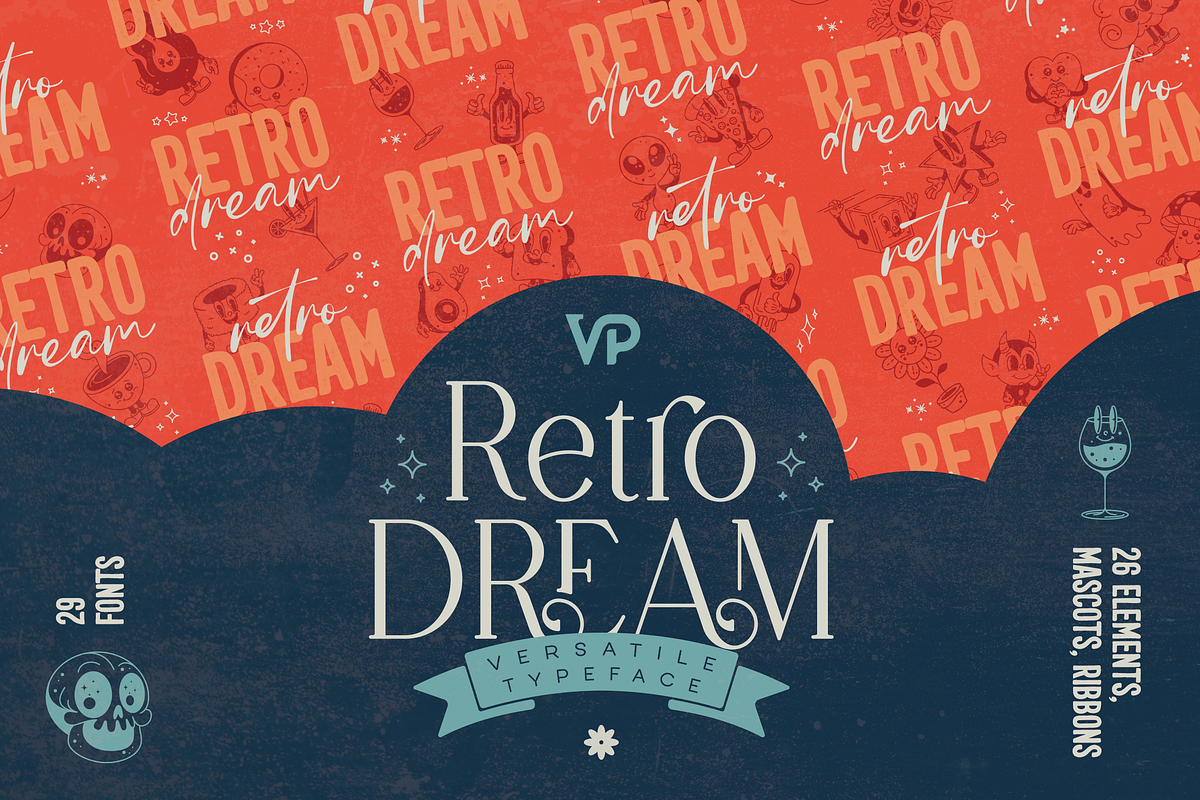
Retro Dream Family – 29 Fonts Free Download is a vibrant and nostalgic font collection inspired by the bold, groovy aesthetics of the '60s, '70s, and '80s. With 29 unique styles including playful scripts, rounded sans serifs, bold displays, and textured alternates, this bundle is perfect for logo design, vintage posters, product packaging, retro branding, and fun social media graphics.
Each font in the Retro Dream Family offers its own unique flair while maintaining a cohesive, throwback vibe. Whether you're designing for a music event, retro clothing line, or themed party invite, this type family has the perfect style to match your vision.